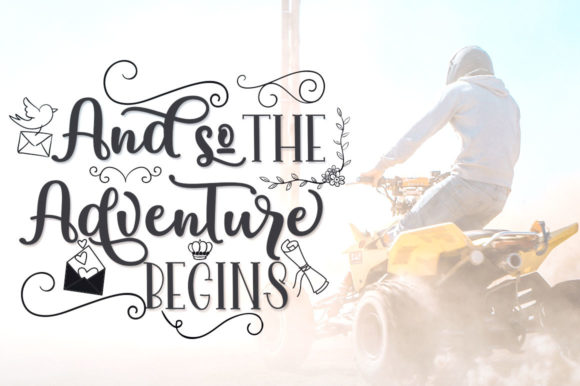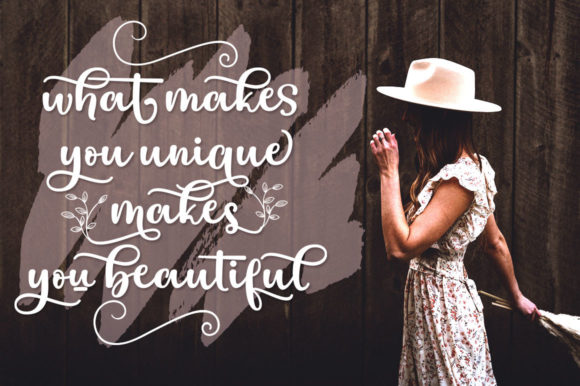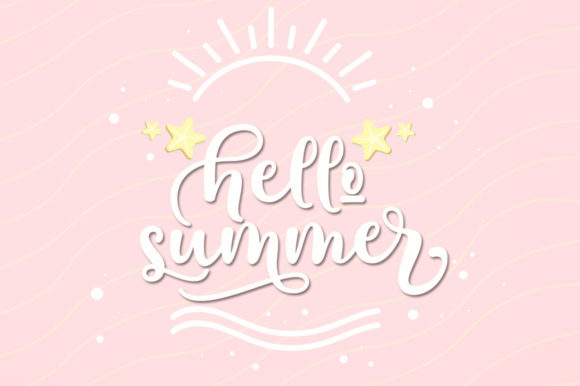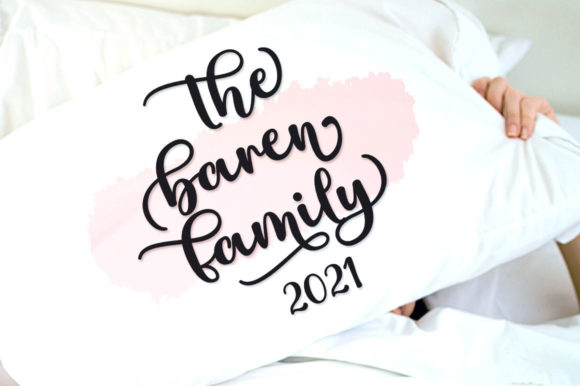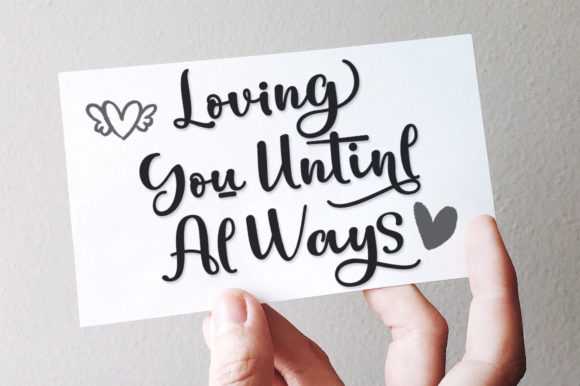
Introducing Derby Font: Elevate Your Designs with Sophistication and Elegance
In the world of typography, a font can make or break the aesthetic of a design project. For designers and crafters seeking to infuse their work with a touch of sophistication and elegance, the Derby font is an exceptional choice. This chic, refined script font is meticulously crafted to bring a level of luxury and refinement to any project it’s used in. With its stylish alternates and ligatures, Derby is not just a font; it’s an experience that can elevate your designs to new heights.
The Essence of Derby Font
Derby font stands out with its fluid, graceful lines and exquisite details. It’s a script font that exudes an air of sophistication, making it perfect for projects that demand a high level of elegance. Whether you’re working on a branding project, a wedding invitation, a fashion magazine, or any other design that requires a touch of class, Derby is the perfect match.
Key Features of Derby Font
- Stylish Alternates and Ligatures: One of the standout features of the Derby font is its collection of stylish alternates and ligatures. These features allow for a high degree of customization, enabling designers to add a unique touch to their work. With a variety of alternates and ligatures at your disposal, you can ensure that your design stands out from the crowd.
- PUA Encoded for Easy Access: Derby font is PUA (Private Use Area) encoded, which means accessing all the glyphs and swashes is straightforward. This encoding ensures that you can easily incorporate the font’s extensive features into your designs without any hassle.
- Sophistication and Elegance: The overall design of Derby is centered around bringing a sense of sophistication and elegance to your projects. Its refined appearance makes it suitable for a wide range of applications, from high-end branding to luxurious packaging.
Applications of Derby Font
The versatility of Derby font makes it suitable for various design projects. Here are some of the areas where Derby truly shines:
- Branding and Logotypes: For businesses looking to establish a luxurious brand image, Derby can be used to create elegant logotypes and branding materials.
- Wedding and Event Stationery: The font’s sophisticated look makes it ideal for wedding invitations, save-the-date cards, and other event stationery.
- Fashion and Beauty: Derby is a perfect fit for fashion magazines, beauty blogs, and product packaging in the fashion and beauty industries.
- Packaging and Product Design: For products that require a touch of luxury, such as high-end cosmetics or gourmet foods, Derby can be used to create stunning packaging designs.
Tips for Using Derby Font Effectively
To make the most of Derby font, consider the following tips:
- Pair with Complementary Fonts: When using Derby in a project, consider pairing it with simpler, sans-serif fonts for contrast and readability.
- Adjust Size and Color Strategically: Given its detailed design, Derby can appear more elegant when used in larger sizes for headings. For body text, consider using a more straightforward font.
- Utilize Alternates and Ligatures: Take advantage of Derby’s stylish alternates and ligatures to add personality and uniqueness to your text.
Derby font is a powerful tool for designers and crafters aiming to add a touch of sophistication and elegance to their projects. Its stylish alternates, ligatures, and PUA encoding make it not only beautiful but also highly versatile and user-friendly. Whether you’re working on a luxury brand, a wedding invitation, or any project that demands elegance, Derby is an excellent choice. With Derby, you can ensure that your designs stand out with a level of refinement and class that is hard to achieve with standard fonts.
Incorporate Derby font into your design arsenal and discover the difference it can make in elevating your work to new levels of sophistication and elegance.